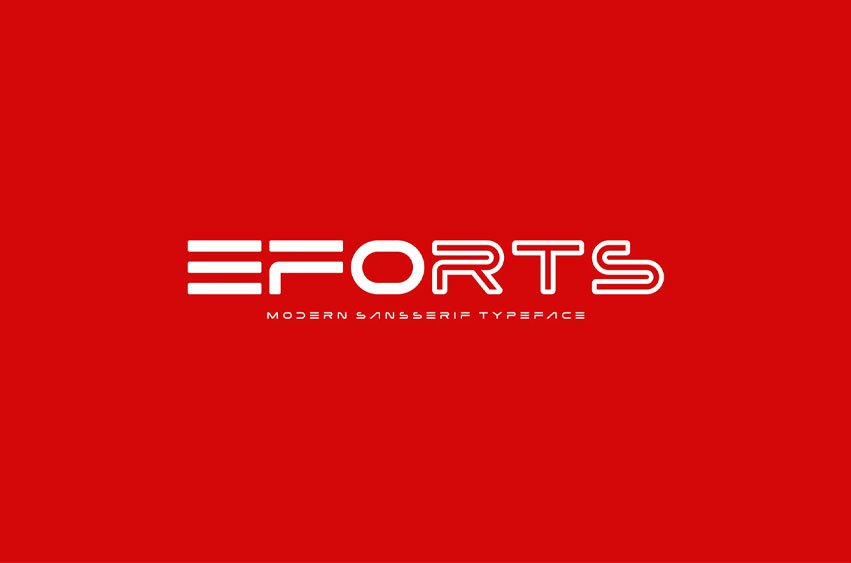
Eforts Font Modern Font is a bold and authentic display font. The font is suitable for any branding project, like logos, esport, and many more.
outstanding in a wide range of contexts.